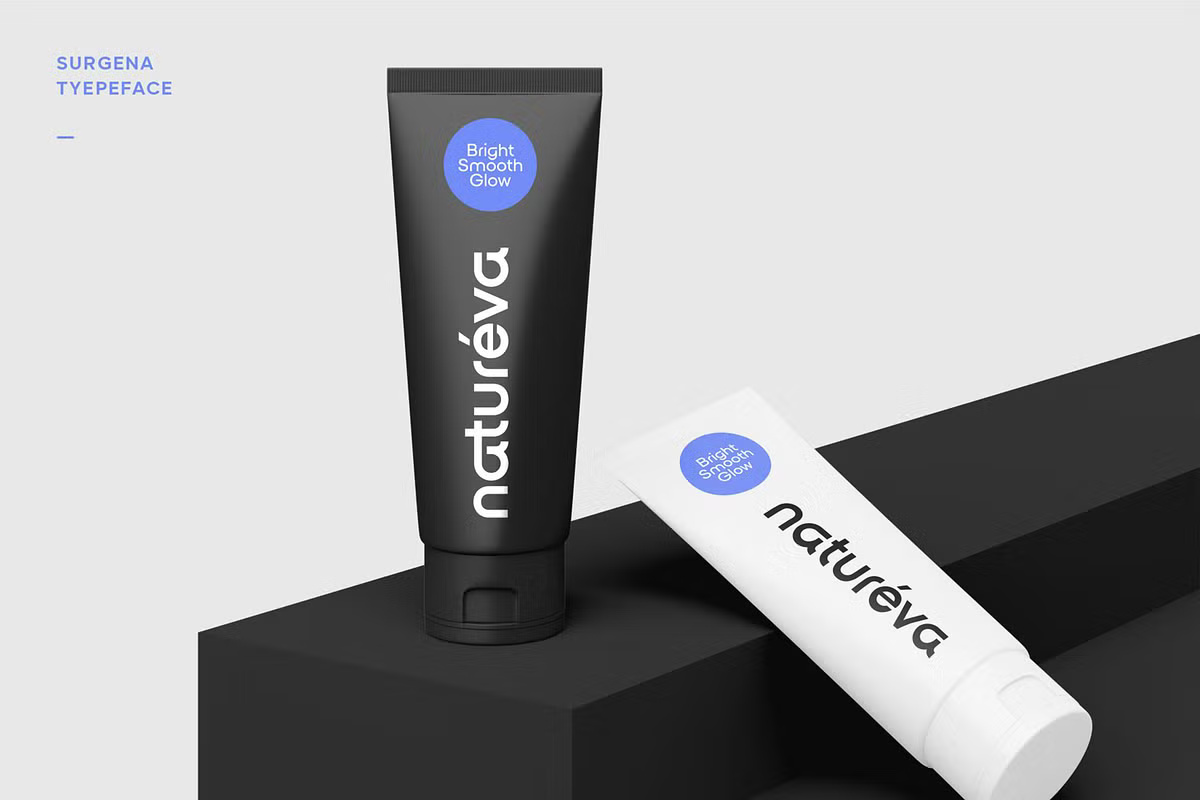
Surgena is a rounded sans with geometric bones. The bowls are close to perfect circles, the strokes end in soft caps, and the lowercase has a friendly, open look. The logo on the cover sits a blue dot next to the S, a hint of how it is meant to be used.
The full family from Digitype Studio has ten styles: Light, Regular, Medium, SemiBold and Bold, each with an italic. The free file is a single style. A skincare tube mockup sets the made up brand Naturéva in white on black, and the numerals sheet shows clean figures with maths and currency symbols.
Best uses for Surgena
- Tech start up and app logos
- Skincare and wellness packaging
- Website headings
- Presentation slides
- Product labels
Surgena works well with a neutral sans for long text, such as Inter. Manrope keeps the geometric feel. For a serif contrast, try Source Serif 4.
Surgena Sans Serif Font